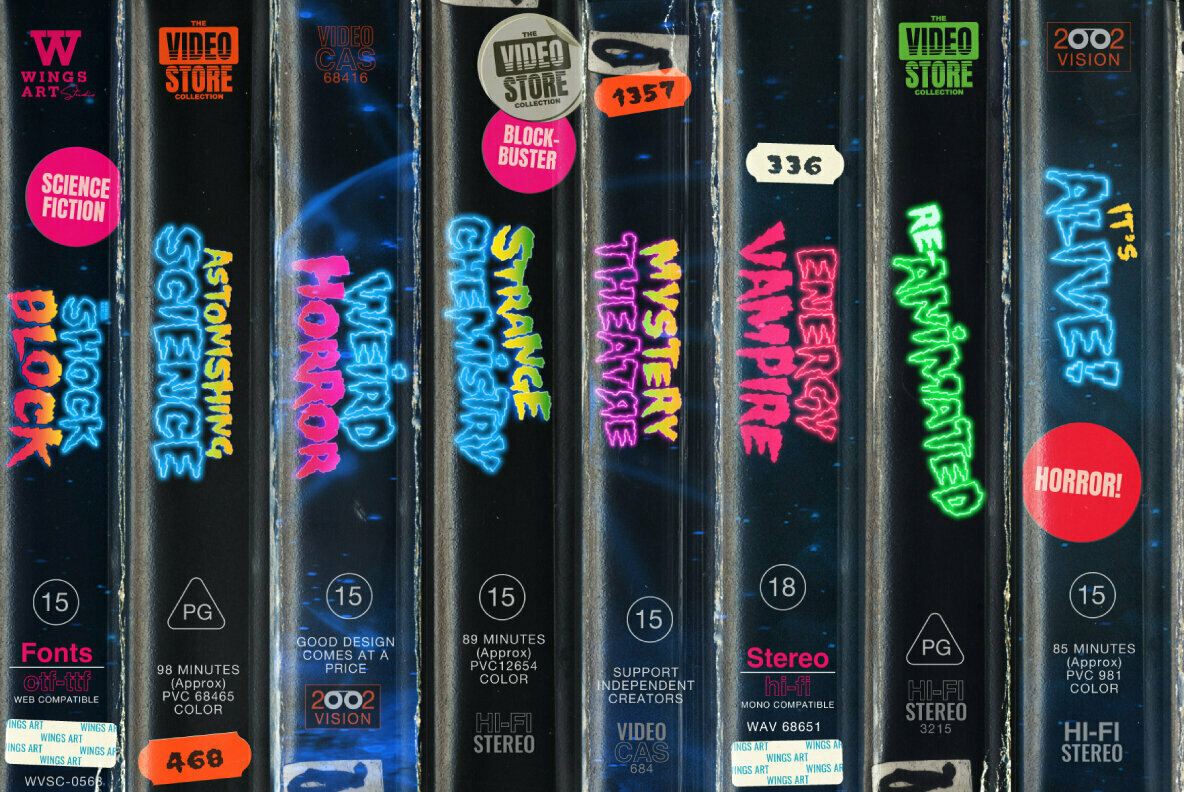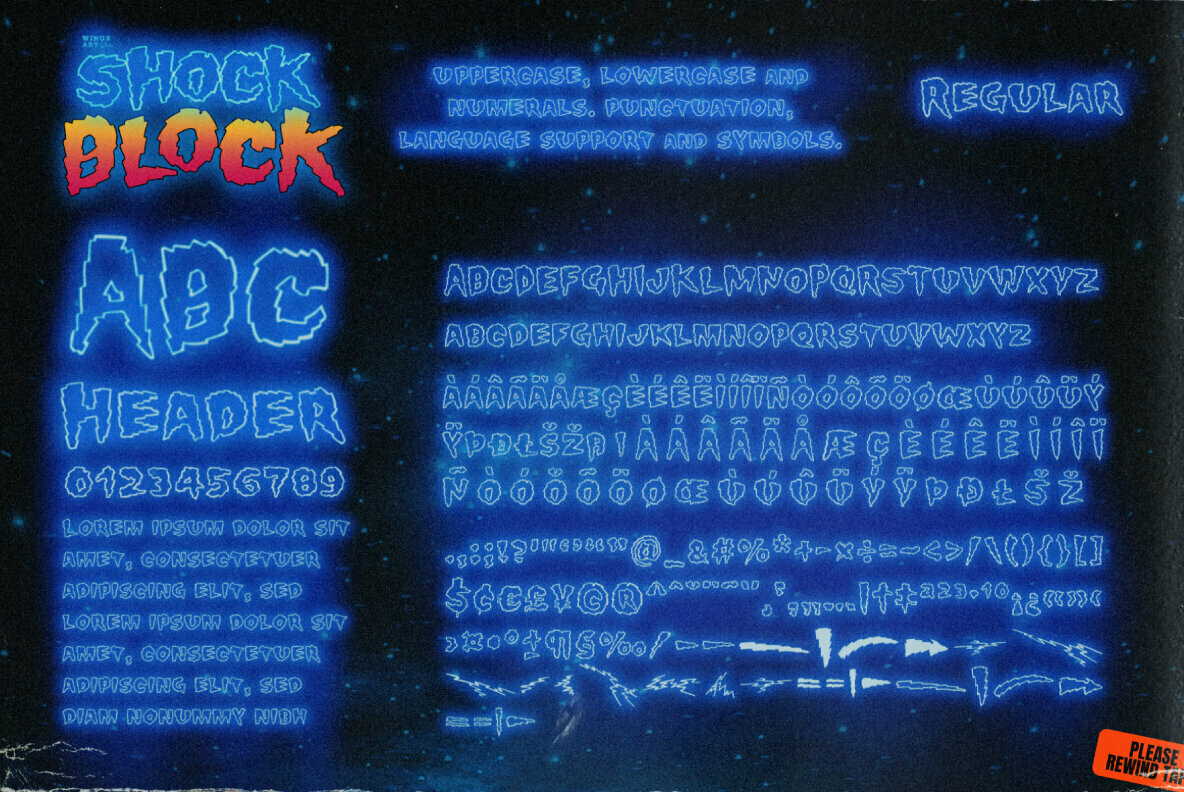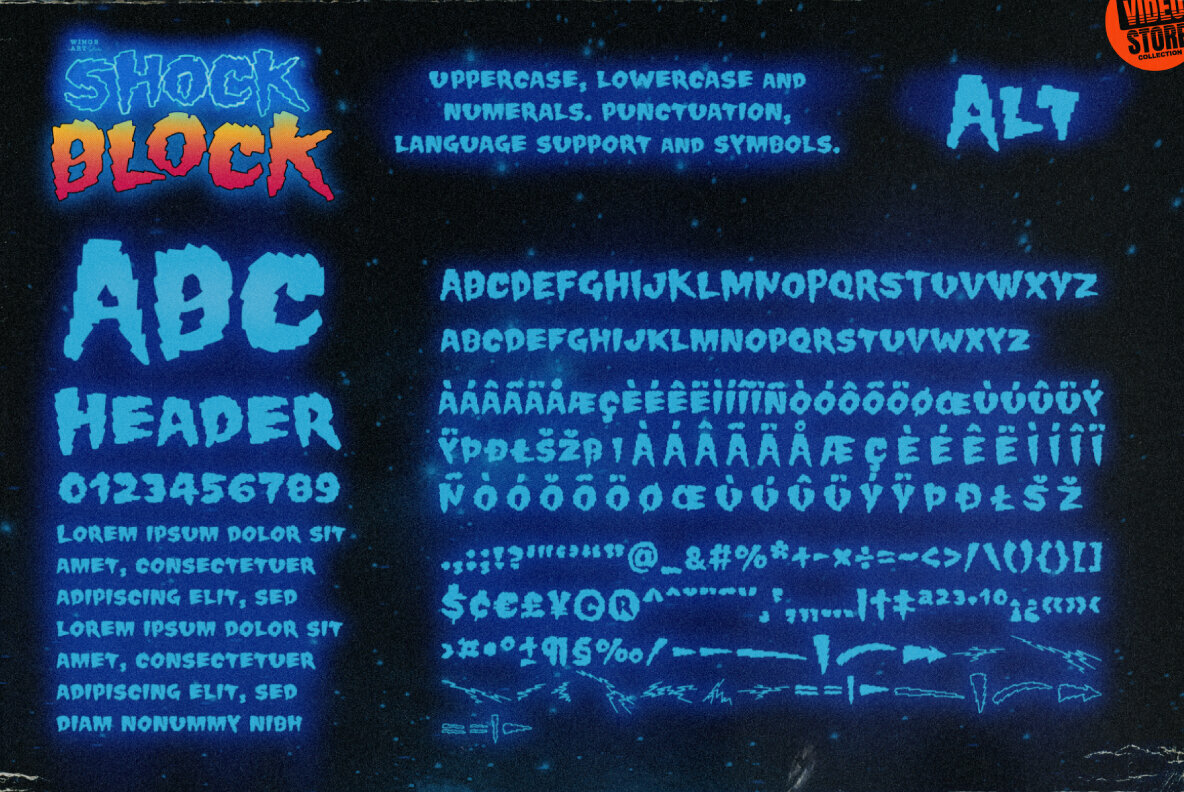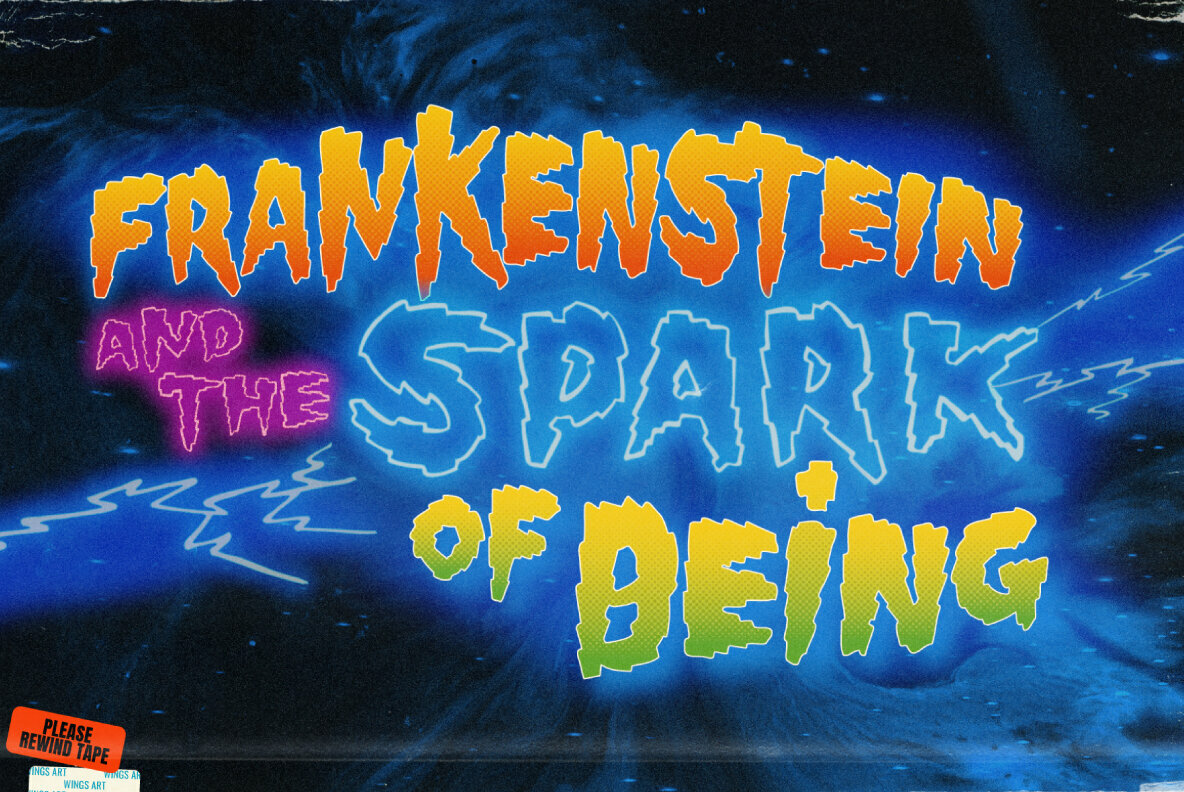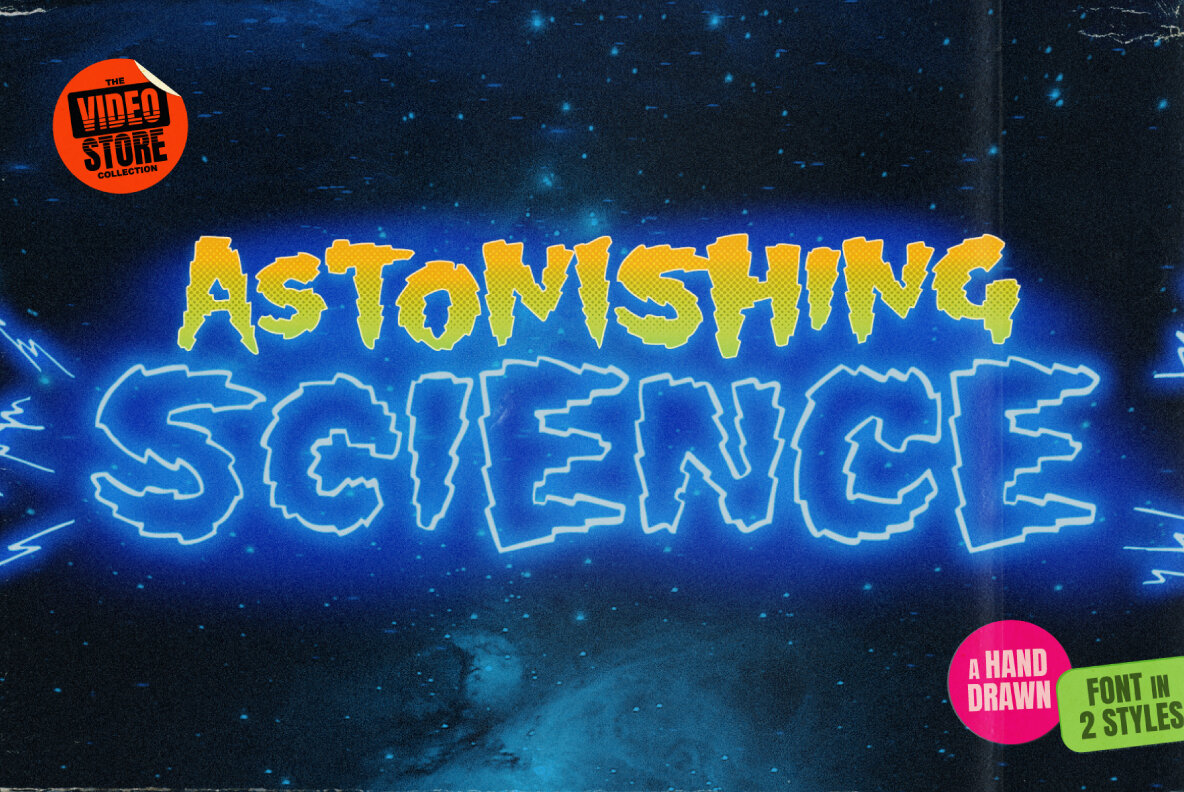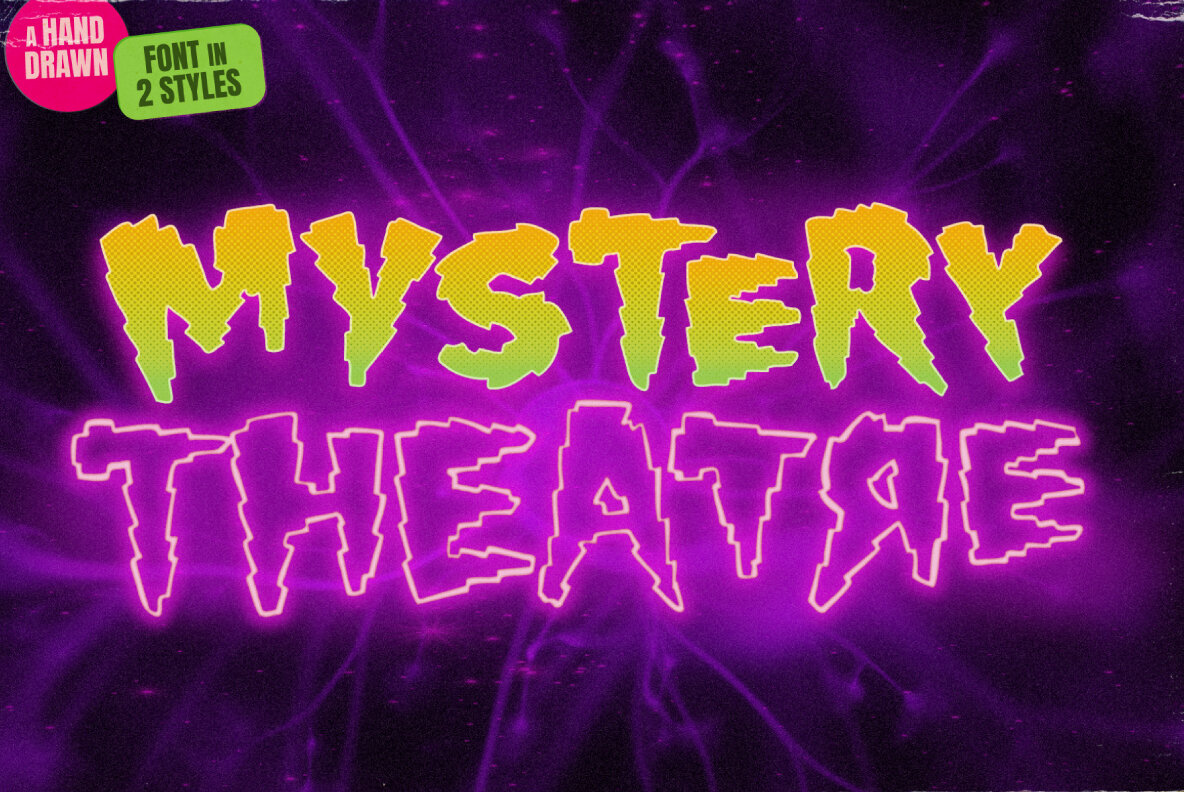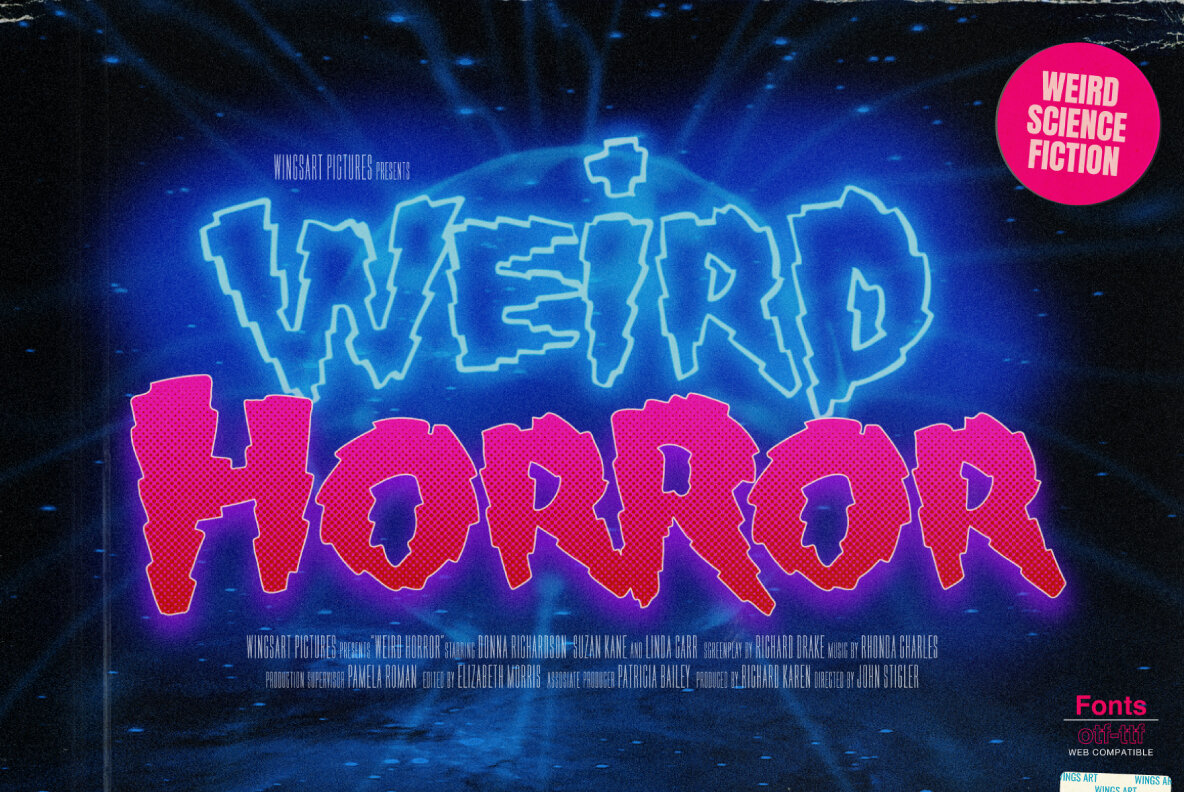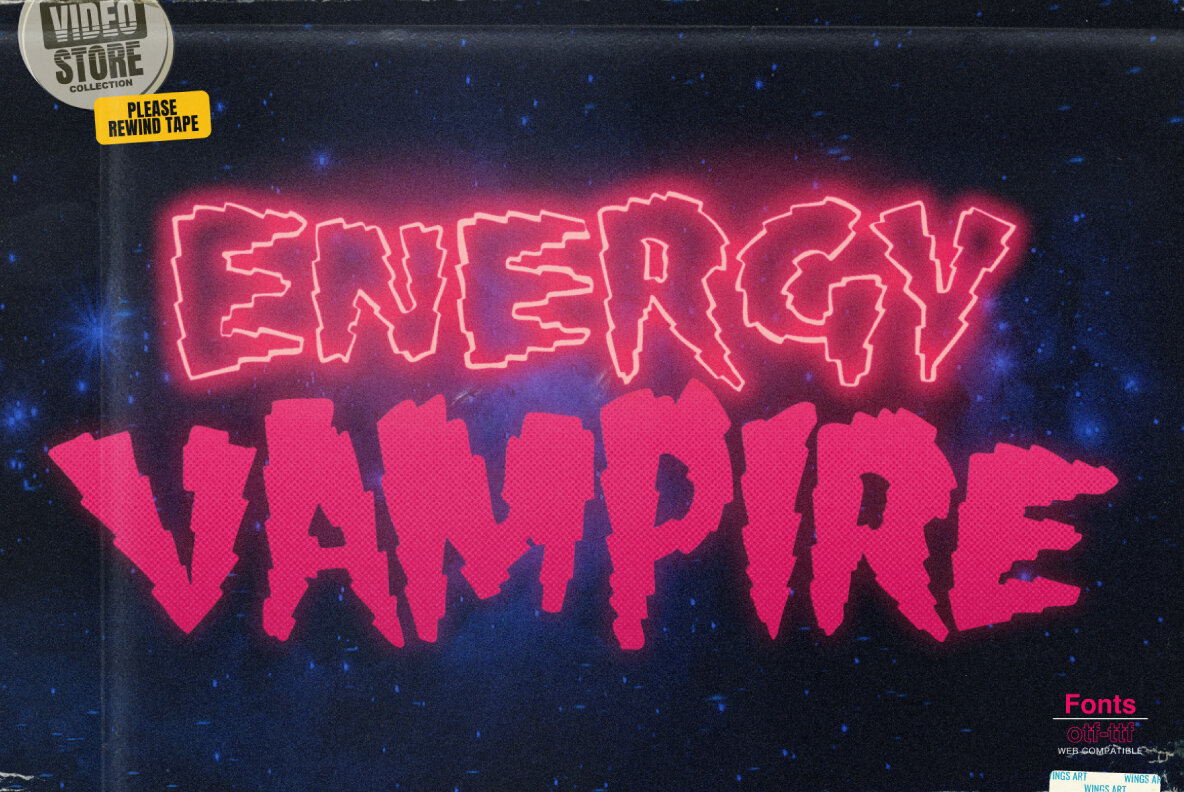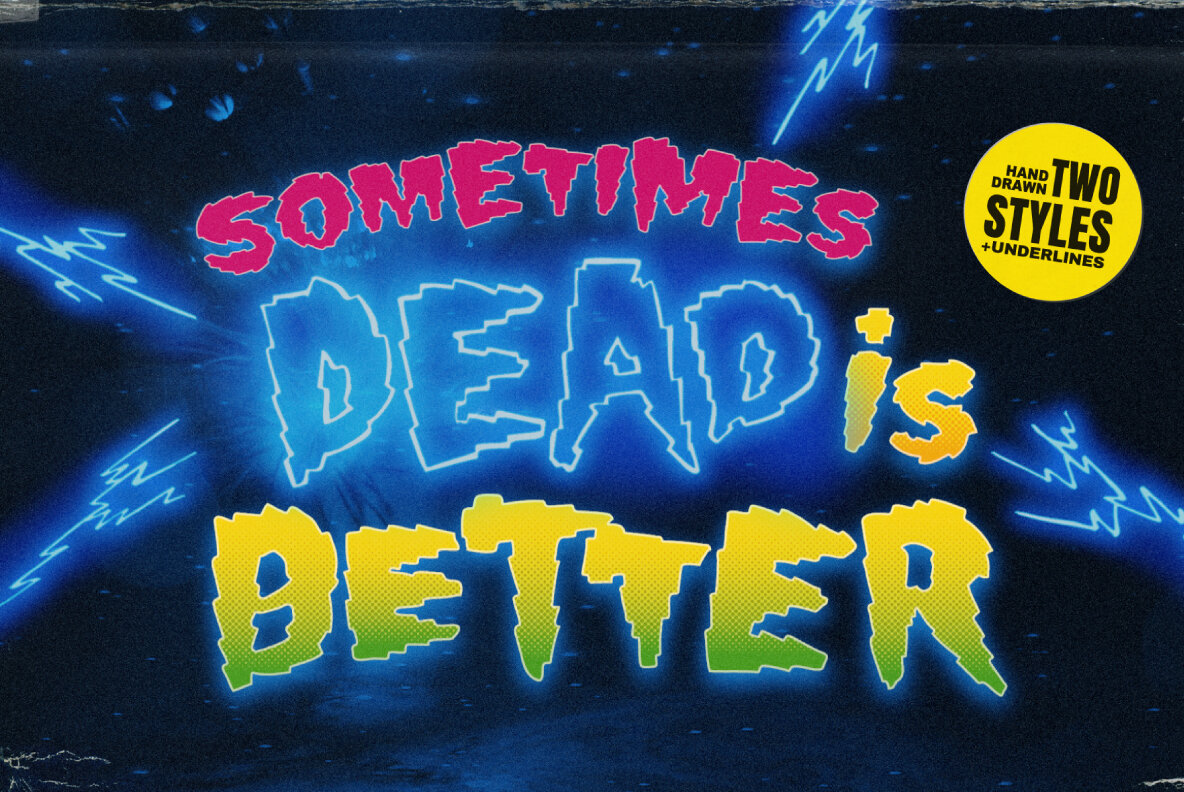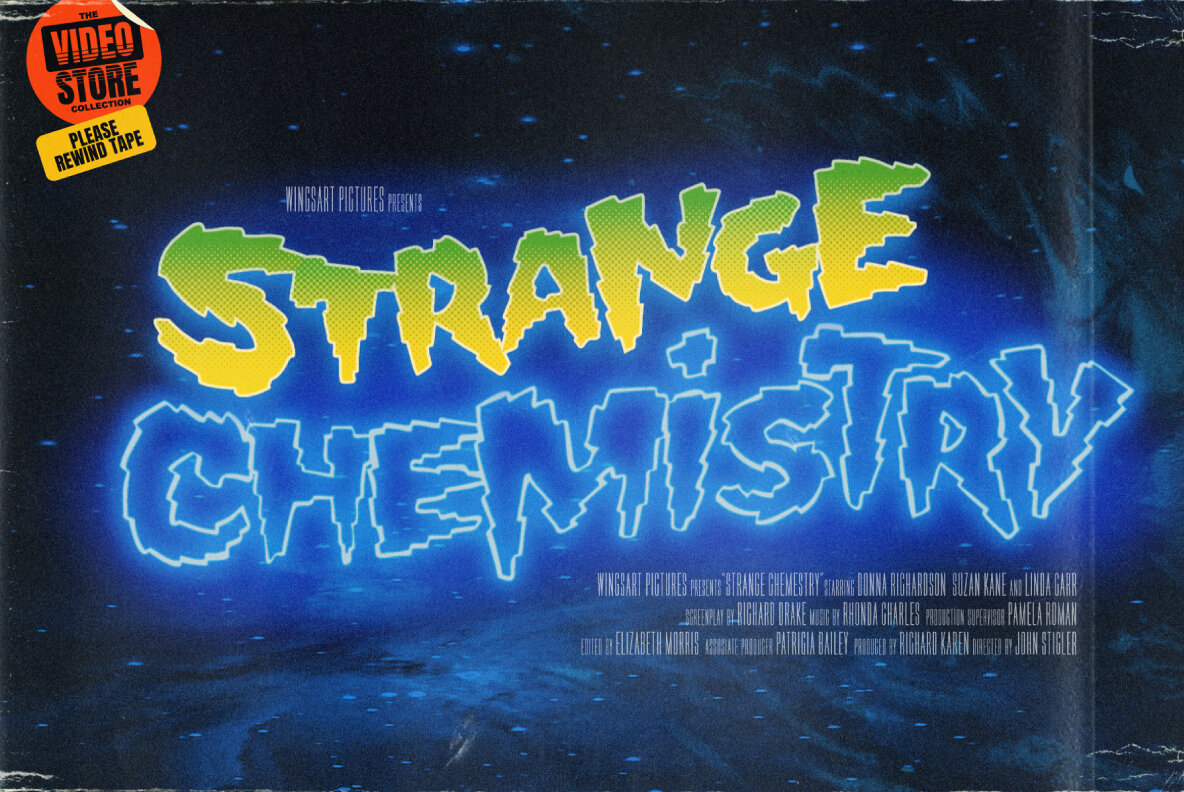
Shock Block Font
Shock Block: An electrifying font powered by science, 80s movies and horror comics.
Boasting an eye-catching design that's hand-drawn in pen and ink to replicate the look of classic horror comics, 80s movies and Saturday morning cartoons, Shock Block is a highly volatile font powered by experimental science and 1.21 gigawatts of electricity! User be warned, safety goggles are required!
Shock Block is an all-caps design with unique upper and lowercase characters along with numerals, punctuation and language support. It also includes a contrasting 'Block' style and a selection of lighting blot symbols and underlines. Customers can also access the free graphic presets via a link in the enclosed PDF that replicate the electric neon look in my visuals.
It's a unique typeface that's perfect for movie titles, school projects, presentations, comic books, or anything that could do with extra spark.
Shock Block: An Electrifying Font
- Shock Block Regular
- Shock Block Alt
- Underlines and symbols*